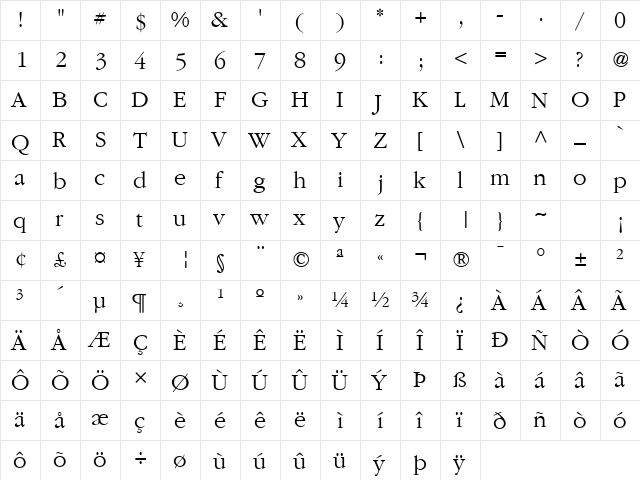
Garamond Light SSi Light
Design Context for Garamond Light SSi Typeface
Garamond Light SSi takes a measured approach to typography — its balanced proportions and neutral character make it a reliable workhorse for both digital and print work. Its slender proportions lend an understated elegance to any composition.